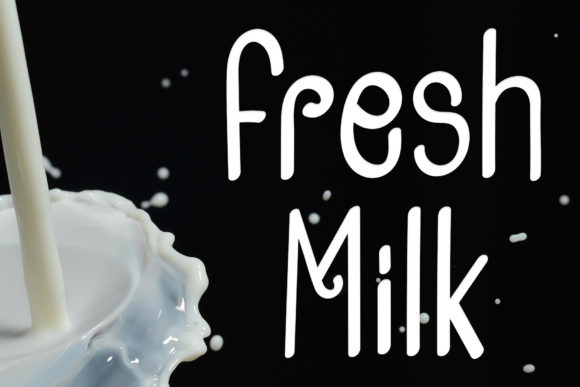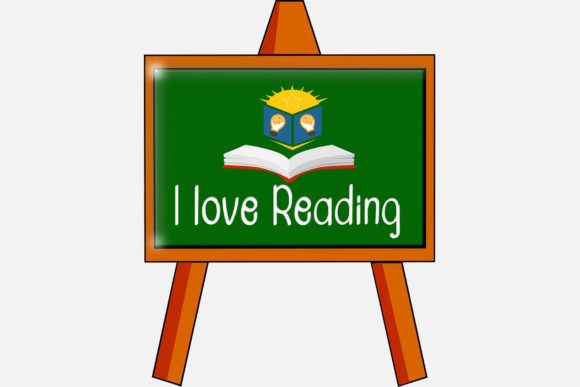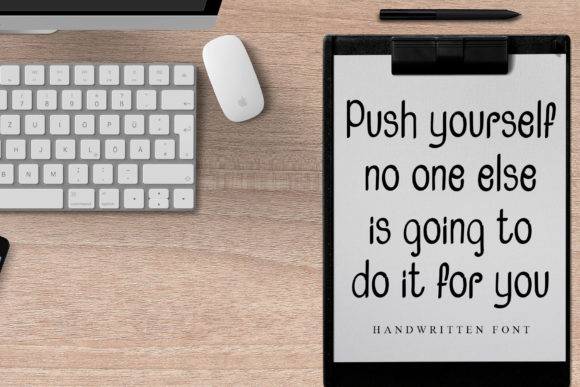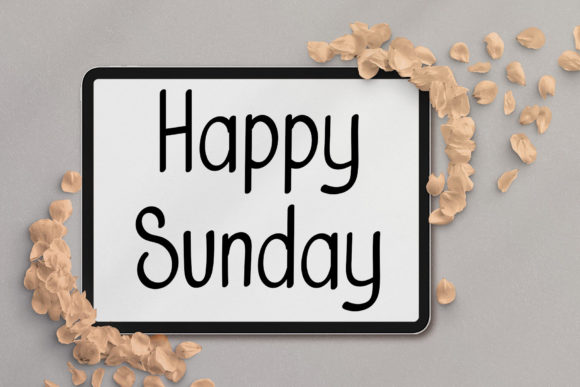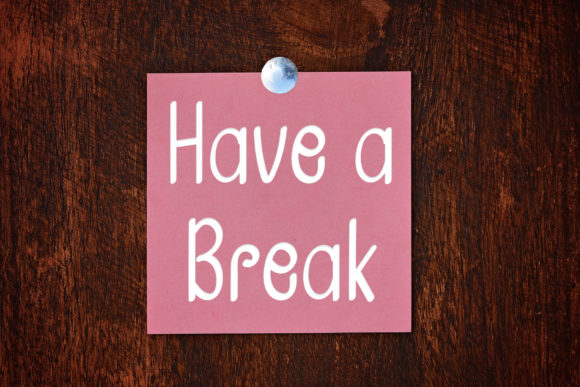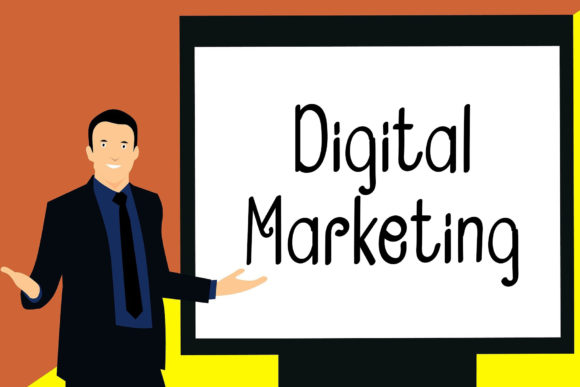
Fresh Milk Font
About Fresh Milk Font
Fresh Milk is a sweet and friendly handwritten font. Its natural and unique style makes it incredibly fitting to a large pool of designs. The only limit is your imagination!